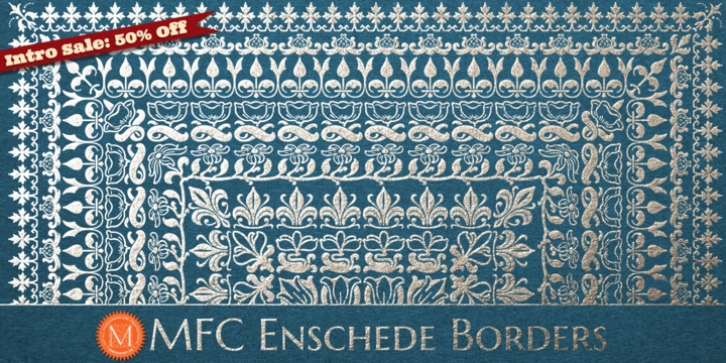
The inspiration source for MFC Enschede Borders is a collection of floral border treatments from the 1904 "Ornamenten Hoofdlijsten en Sluitstukken" by Joh. Enschedé & Zonen, Haarlem. For the first time, this decorative border collection is available digitally.